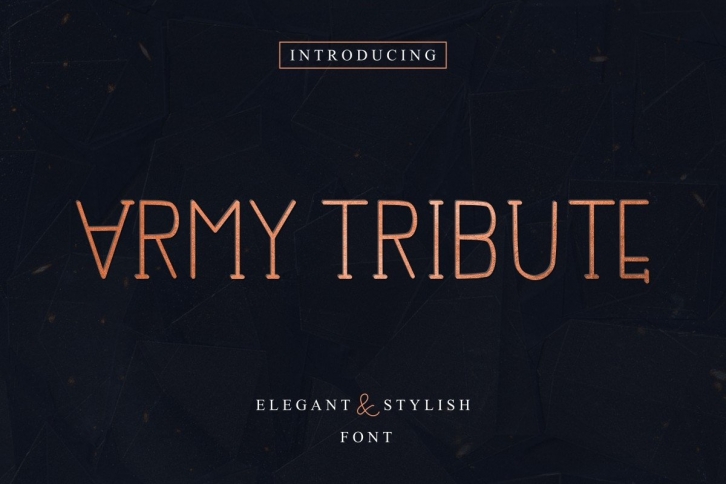
Army Tribute is a trendy and unique font with an authentic style. It was designed by EdricStudio and it's a great choice for creative people who need such a font. It was released on September 19, 2020 and the file size is 19.5 MB. Army Tribute will add an organic vibe to any design idea!